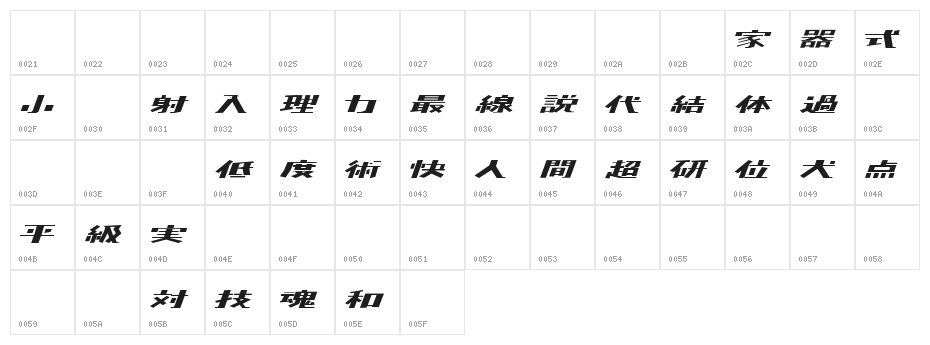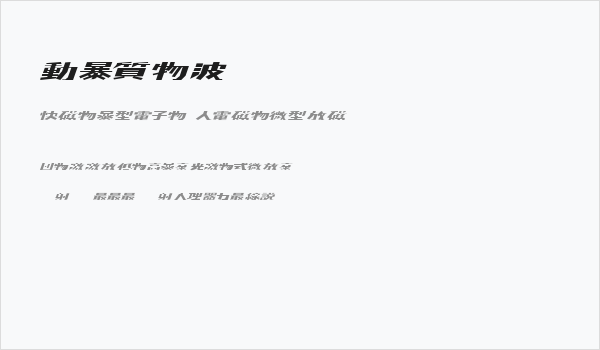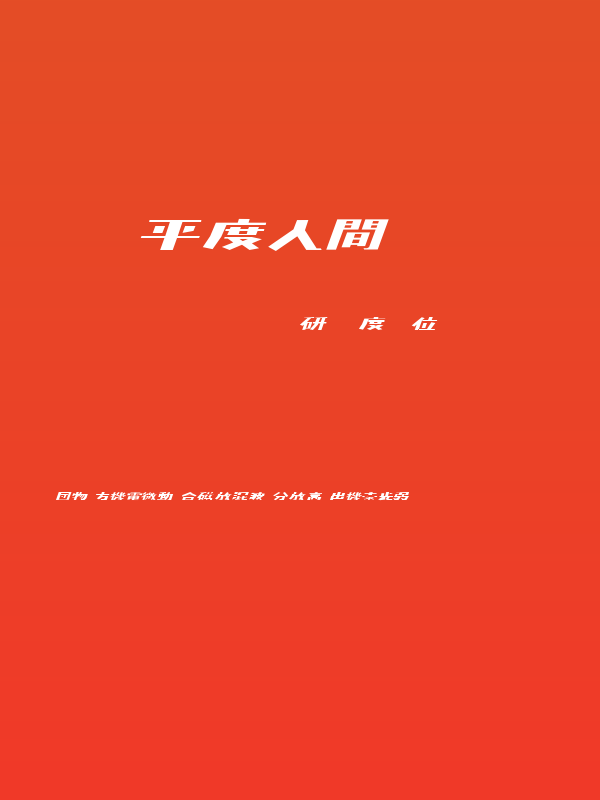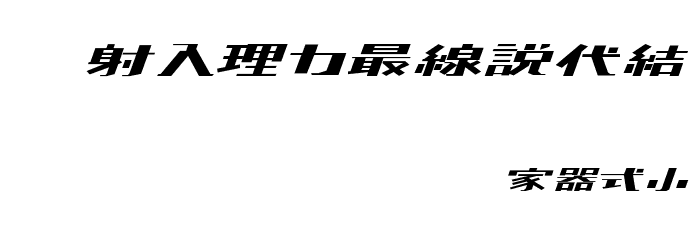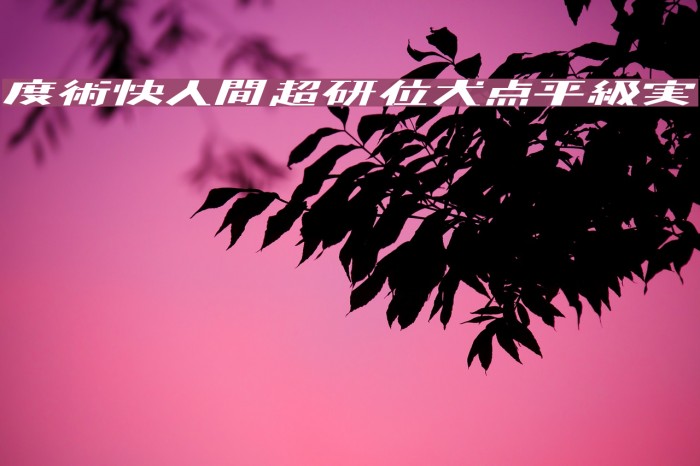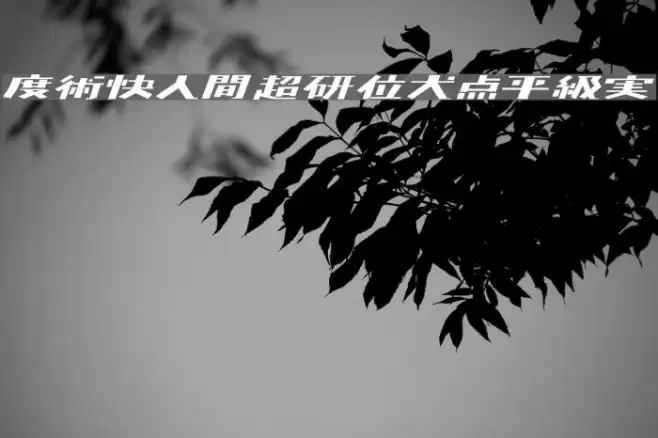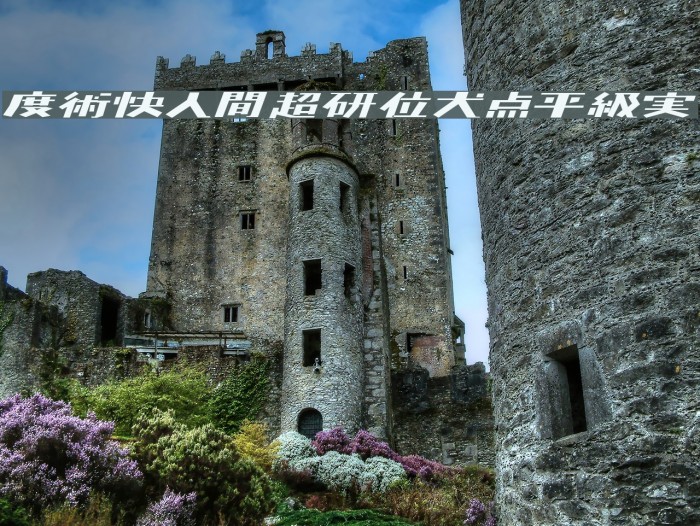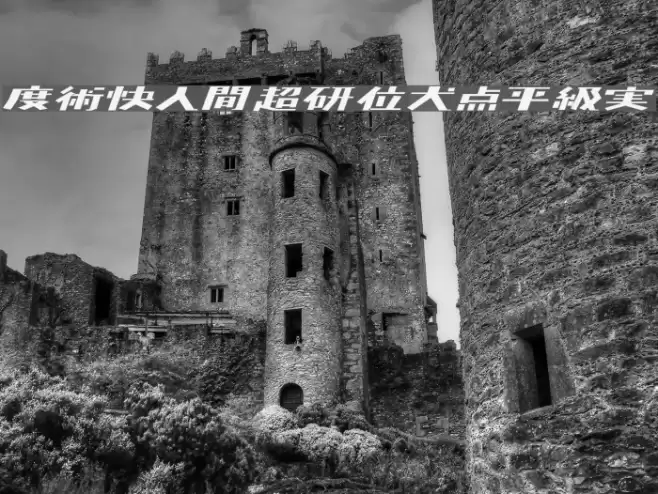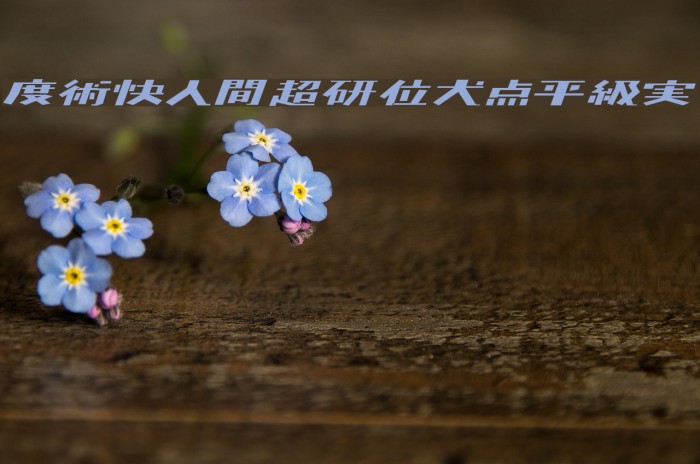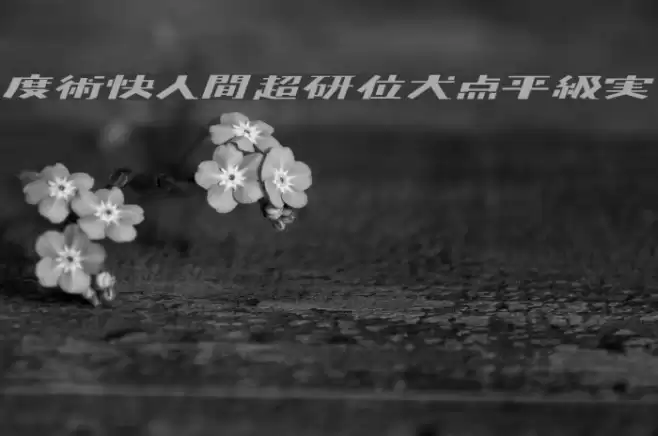
kaden Font
kaden Description
This font features bold, angular strokes with a dynamic and energetic appearance. The characters are slightly italicized, giving a sense of movement and speed. The design is modern and sleek, with a strong emphasis on horizontal lines and sharp edges. The overall style is reminiscent of futuristic or tech-inspired themes, making it suitable for projects that require a bold and impactful visual presence. The character spacing is tight, enhancing the compact and cohesive look of the text.
| Use Case | Logos, Headlines |
| Proposed Projects | Ideal for technology branding, sports team logos, or dynamic advertising campaigns. |